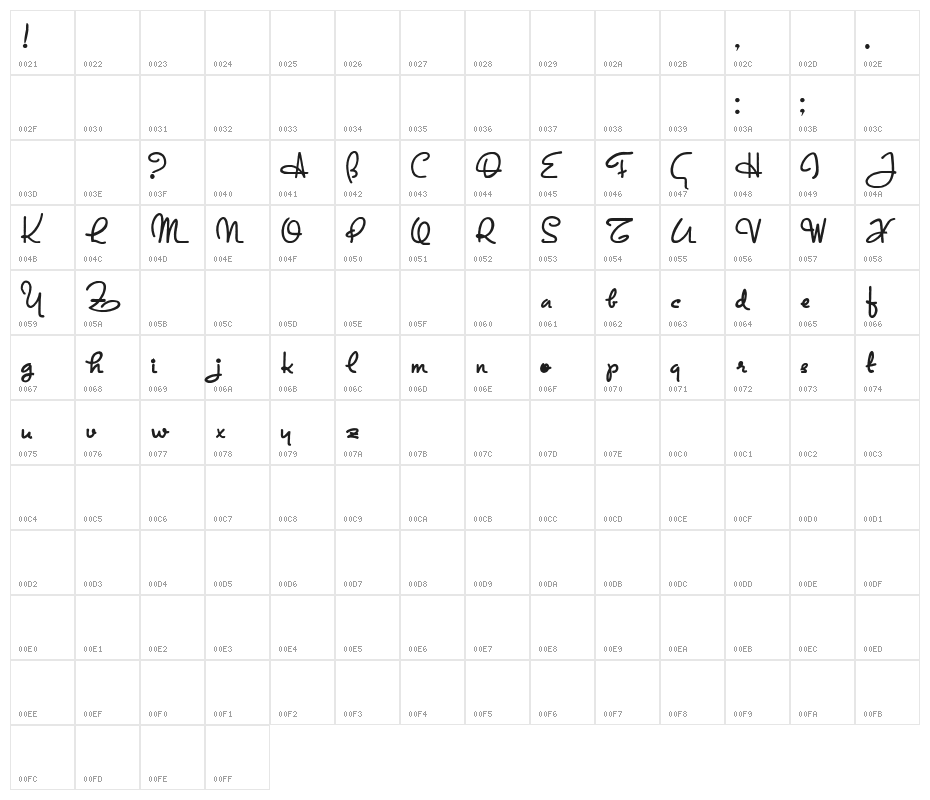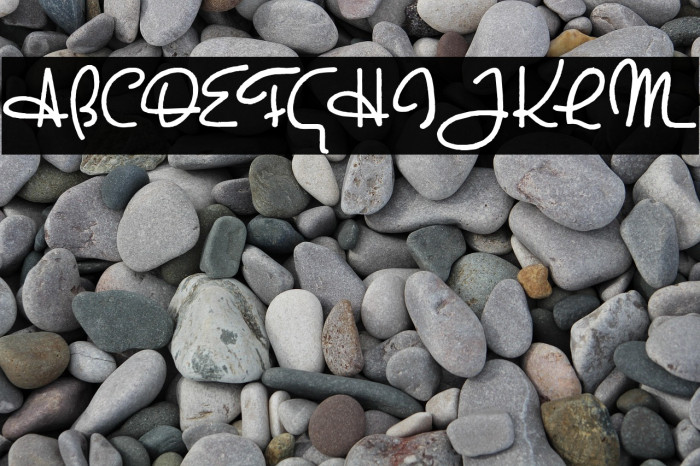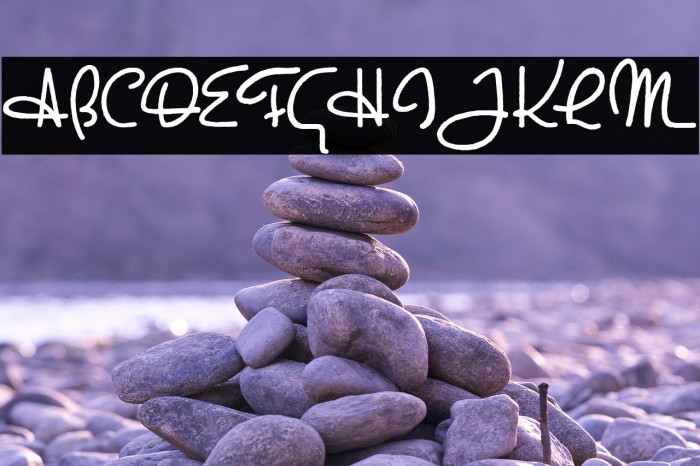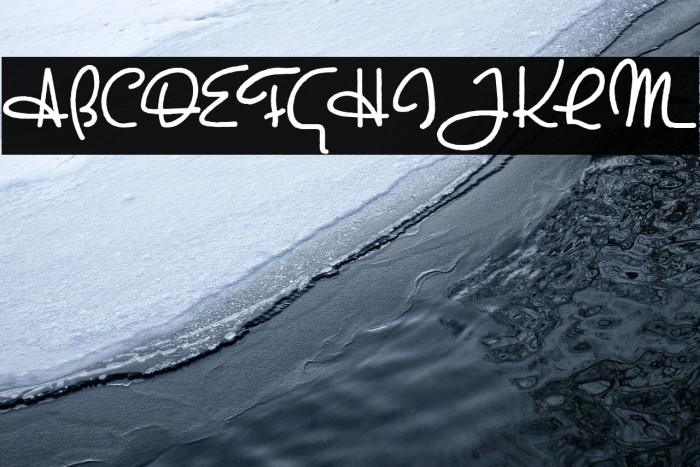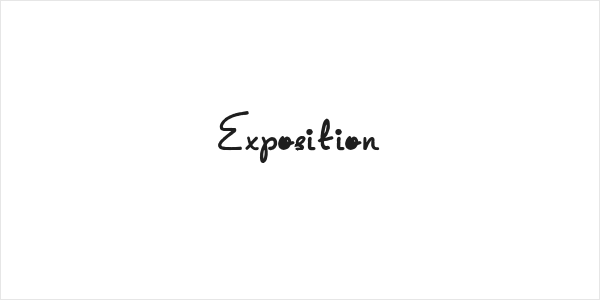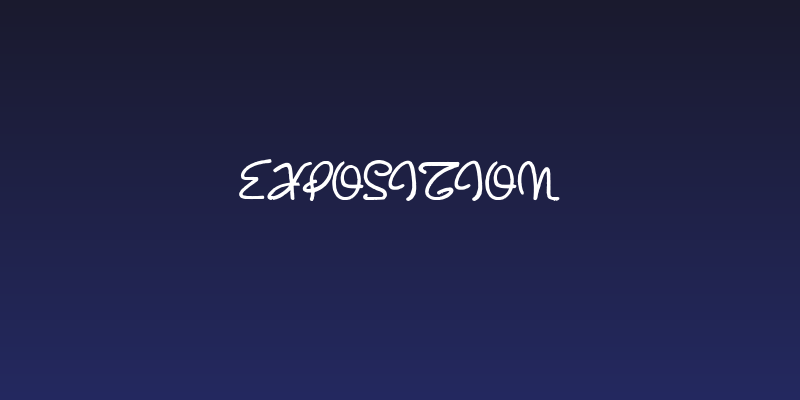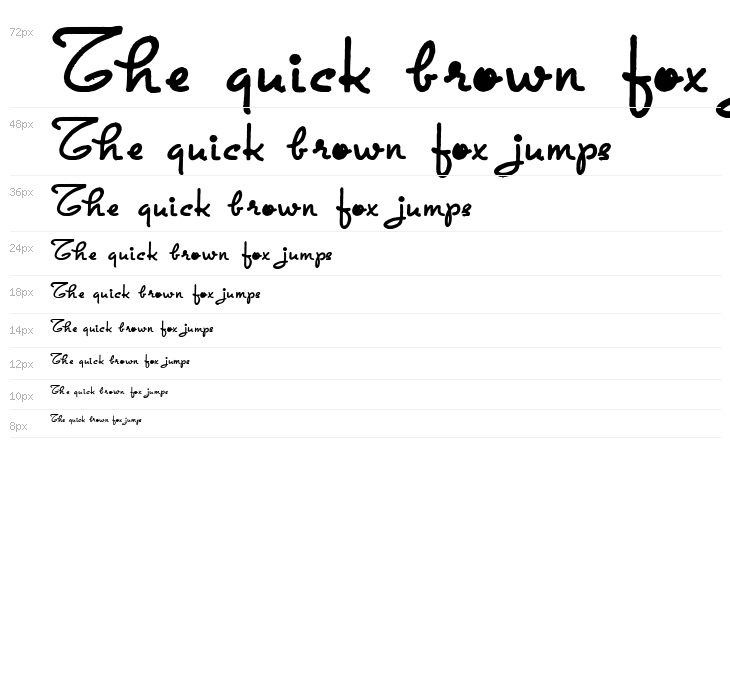
Exposition Font
This font features a playful and dynamic script style with a handwritten feel. The uppercase letters are characterized by their flowing, cursive forms, while the lowercase letters maintain a consistent, rounded appearance. The strokes are smooth and slightly irregular, adding to the casual and friendly aesthetic. The special characters are integrated seamlessly, maintaining the overall whimsical style. This font's unique personality makes it suitable for projects that require a personal touch or a creative flair.
Overall StyleCasual, Whimsical
Use CaseLogos, Invitations, Personal Branding
Proposed ProjectsIdeal for greeting cards, invitations, personal branding, and creative projects that require a whimsical touch.